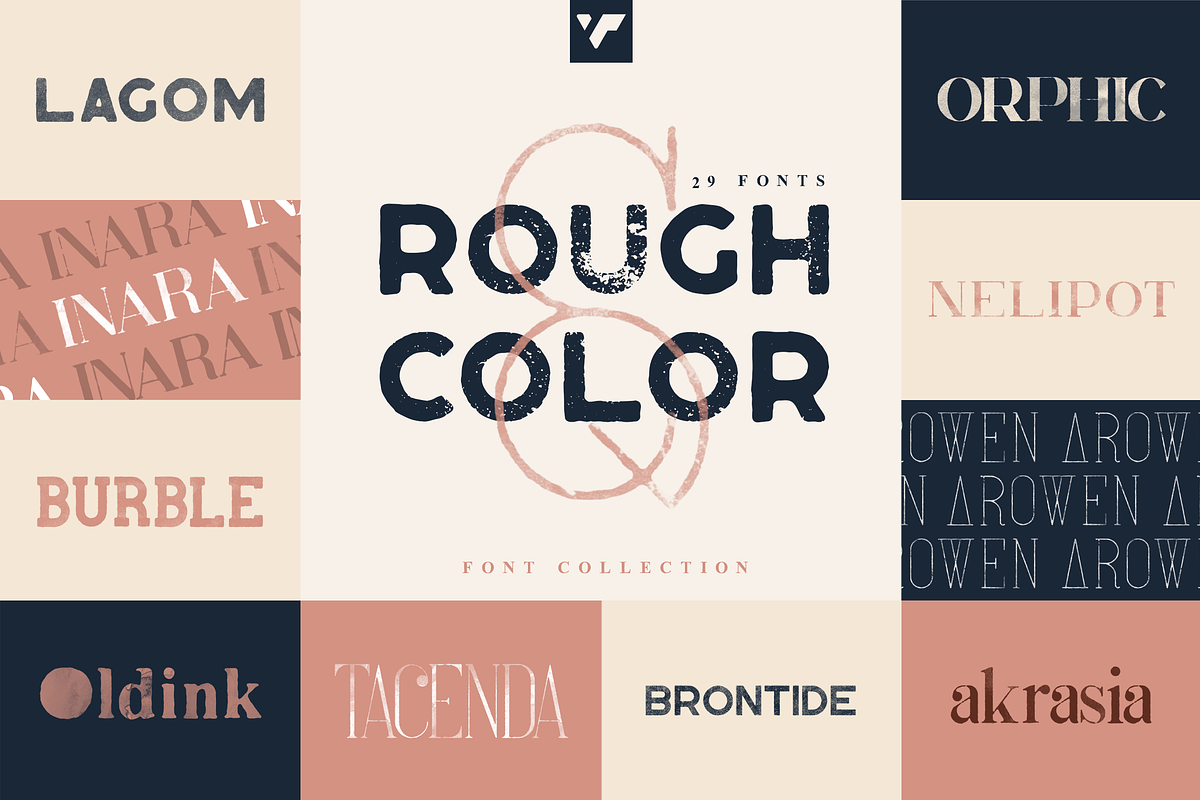
Add bold character to your designs with Rough & Color Font Collection Free Download, a vibrant and textured typeface set perfect for eye-catching visuals. You need to purchase this font for commercial use. However, you can test it in personal or demo projects using Rough & Color Font Collection Free Download. Featuring rugged textures and colorful SVG styles, this collection is ideal for posters, packaging, branding, and social media graphics. Designers love its edgy, handmade feel and dynamic presence. Download Rough & Color Font Collection Free Download today and make your creative projects pop with energy and style.